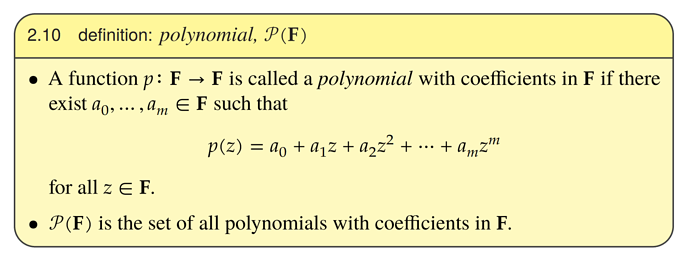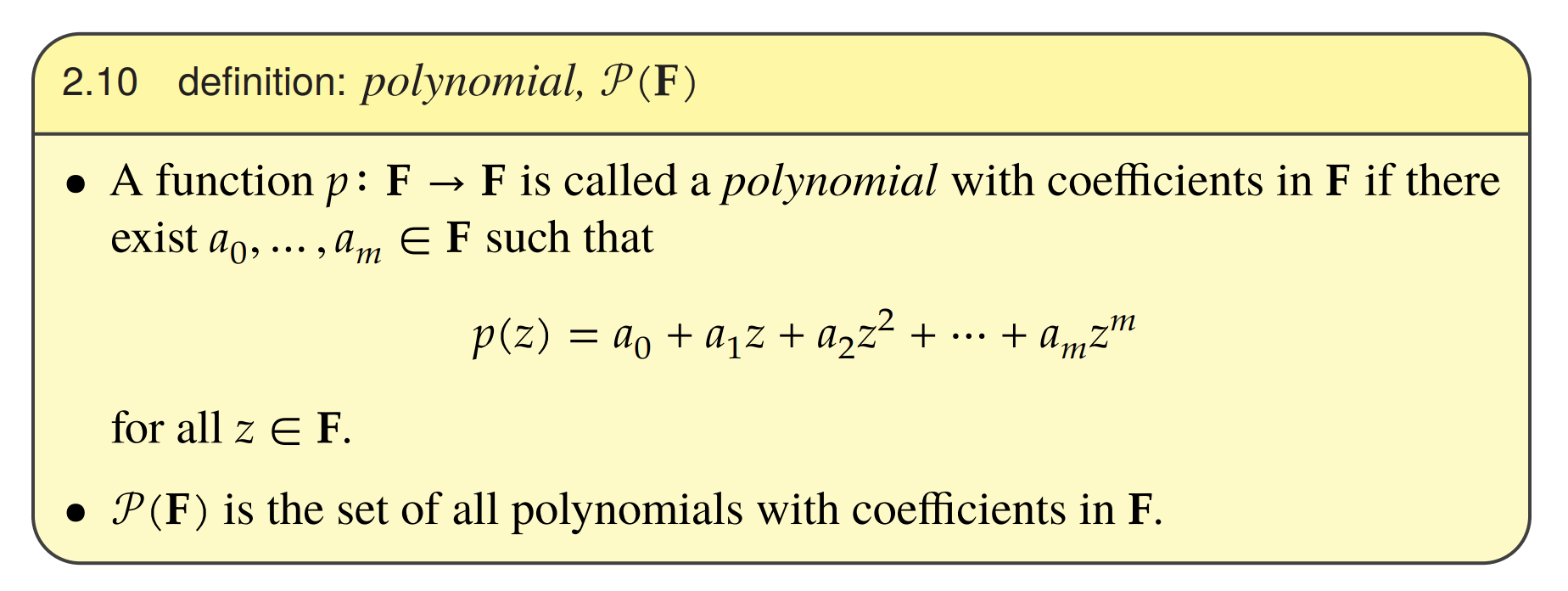
How to create the polynomial symbol (P in calligraphy font)?
I’m trying to insert the P symbol in calligraphy font (see example below) in typst and I don’t see it in the symbols list. I do see something similar for $Re$ but not for P. Is the calligraphy font (like \mathcal in LaTeX) available in Typst?
You can use $cal(P)$ for this - it’s not considered a symbol (even if that would be possible) instead a variant letter style from the math font.
Great. On this topic, the coming Typst 0.15 has the following compatibility note:
• Updated New Computer Modern fonts to version 8.1.0
• This update changes the default look of calligraphic letterforms (cal) in the math font; the previous style can be restored through show math.equation: set text(stylistic-set: 6)
“old”
Let P be the set of
“new”
Let P be the set of